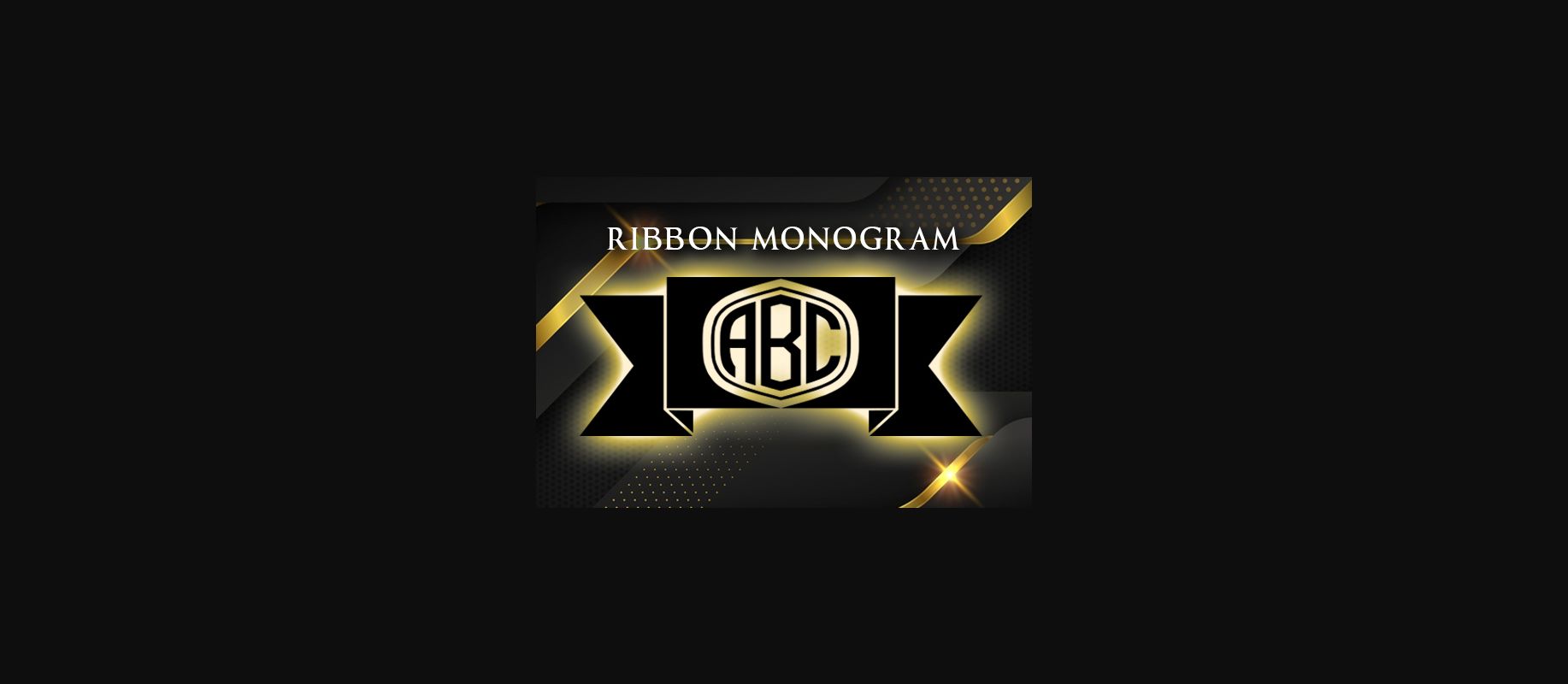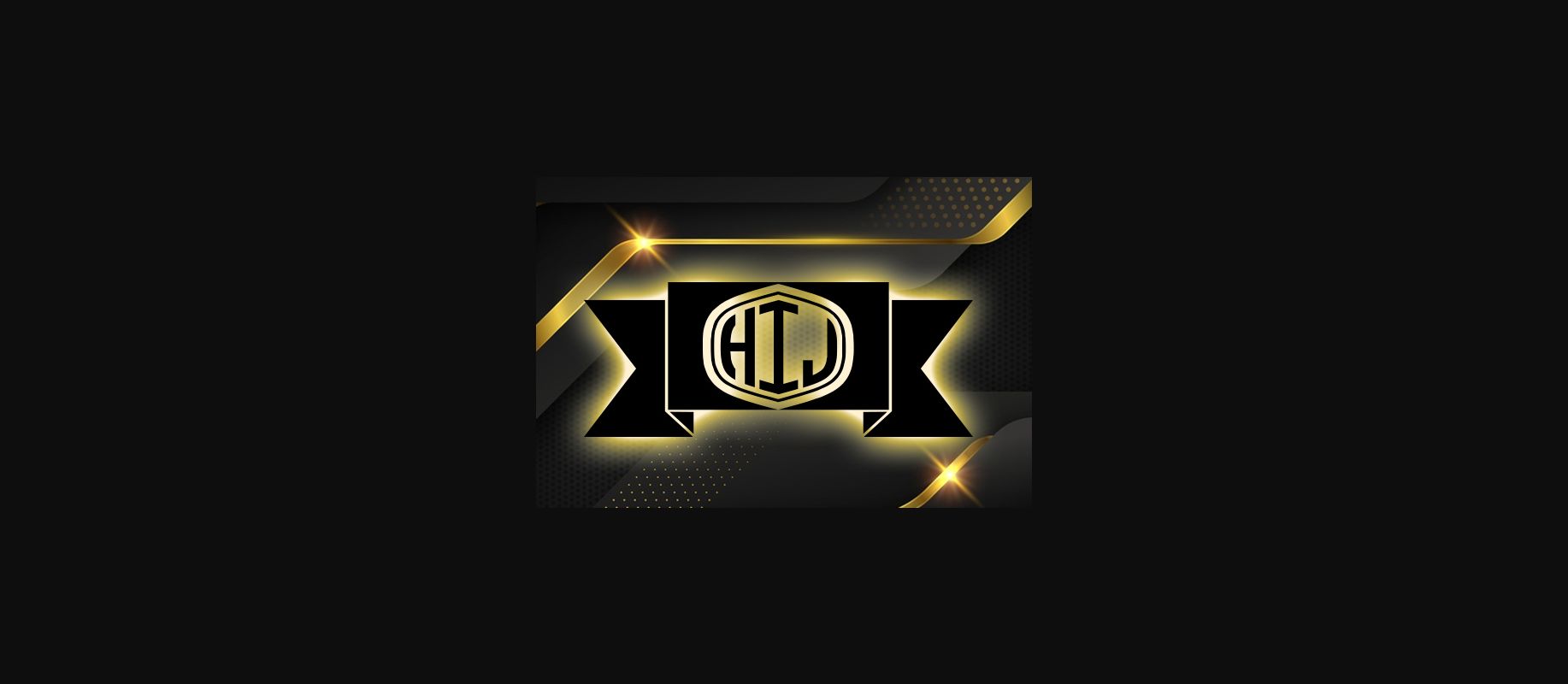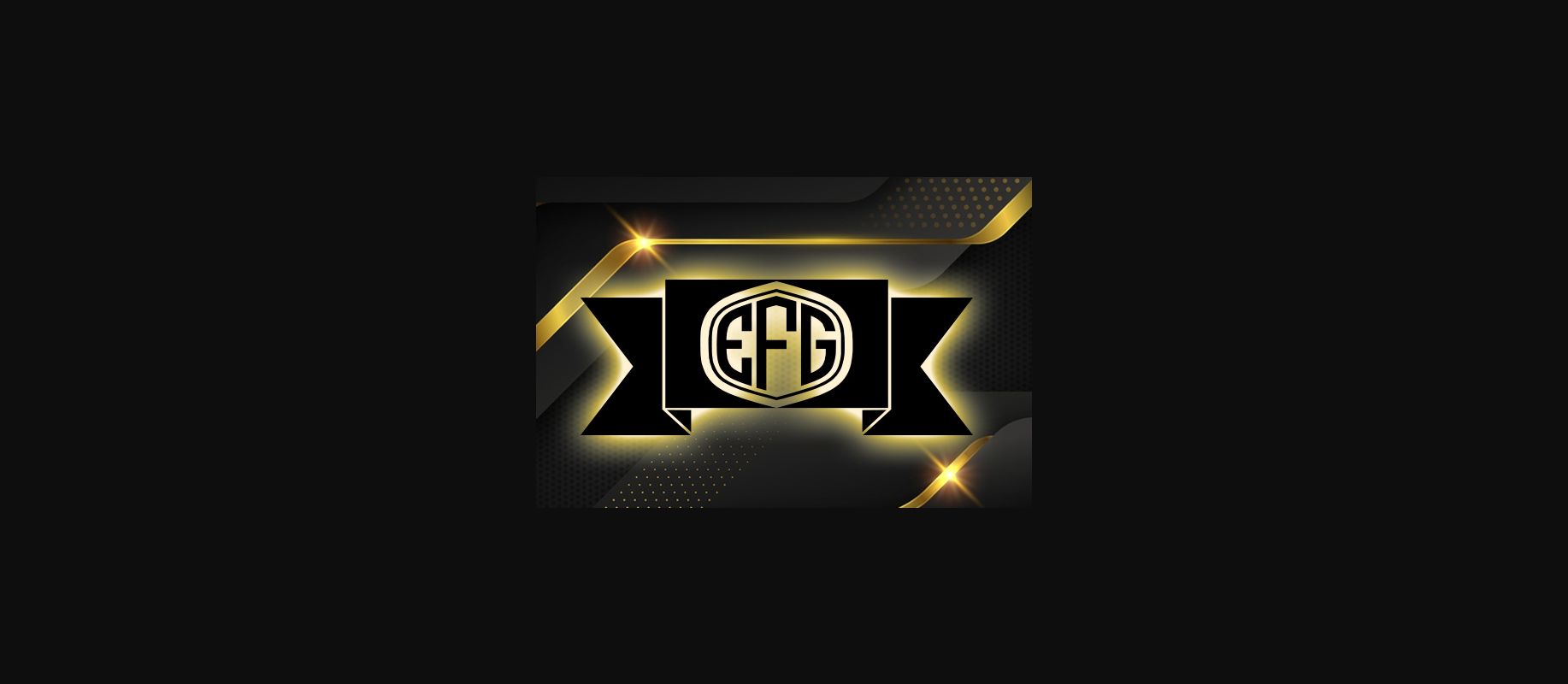
Ribbon Monogram Font
About Ribbon Monogram Font
Ribbon Monogram is a unique decorative font. Get creative with its incredibly versatile style and use it to create spectacular designs!